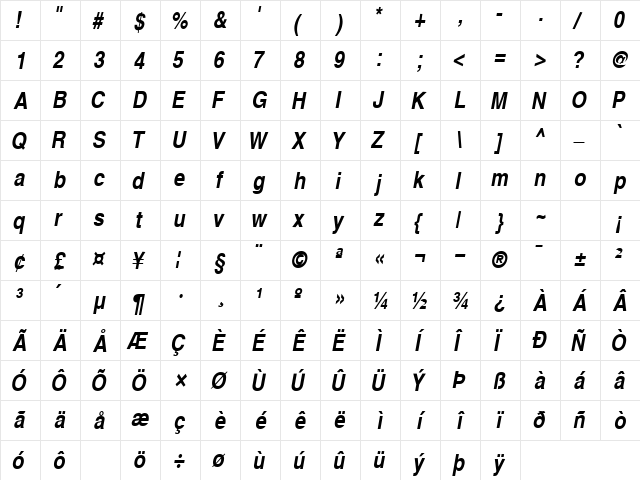
ContextExtraCondSSK Bold Italic Font Preview
Design Context for ContextExtraCondSSK Typeface
ContextExtraCondSSK takes a measured approach to typography — its balanced proportions and neutral character make it a reliable workhorse for both digital and print work. Its italic angle brings a sense of urgency and motion to the letterforms. Its bold stroke weight gives it real presence on the page. Its narrow stance lets it pack a punch even in space-constrained designs.
Pro Tip: Try ContextExtraCondSSK for annotation and caption copy alongside an upright companion — the contrast in angle creates a dynamic but ordered typographic system.